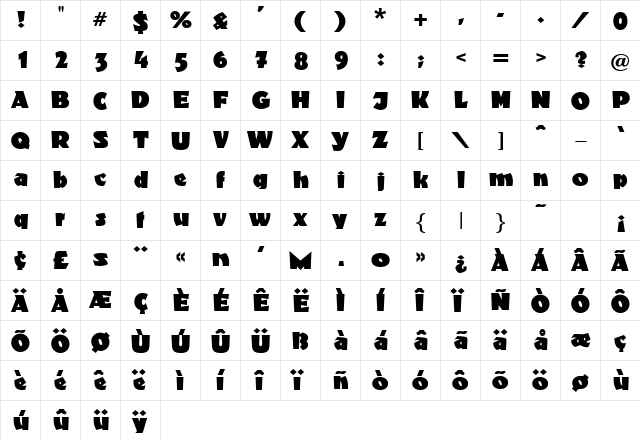
Fansilla Regular
Design Context for Fansilla Typeface
Fansilla is a composed and adaptable typeface that performs quietly and consistently across a wide range of design contexts.